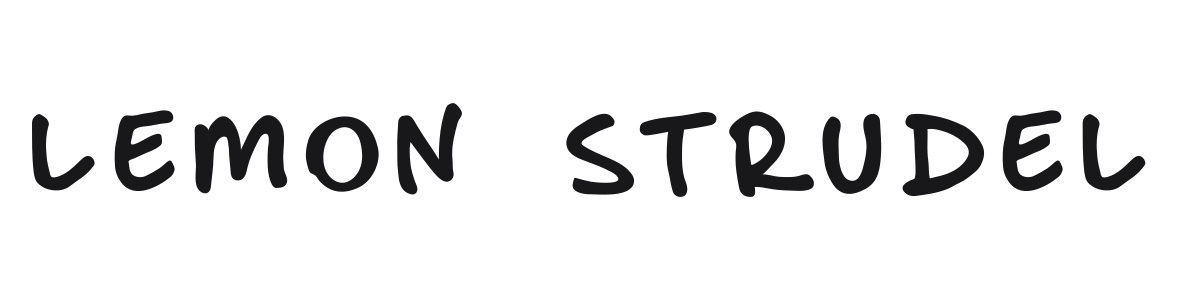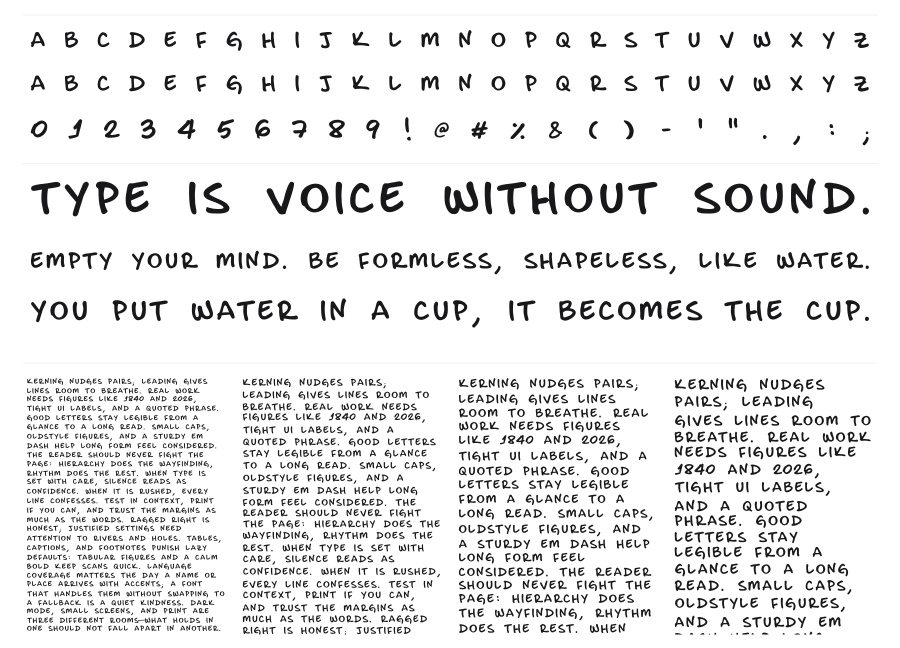
Lemon Strudel
Lemon Strudel is a bold all-caps handwritten font with chunky, rounded strokes and a lively bounce to its baseline. Each letter feels drawn rather than typed, giving it the warmth of genuine hand lettering without losing legibility at display sizes. It suits projects that want personality and approachability without going full-on decorative.